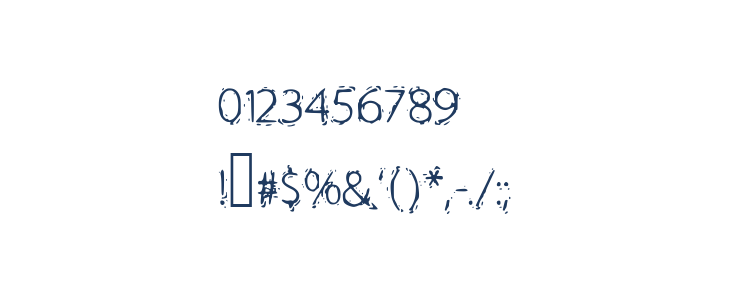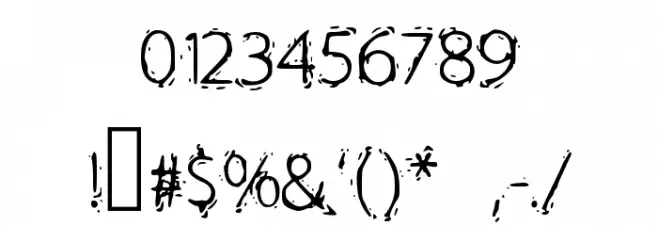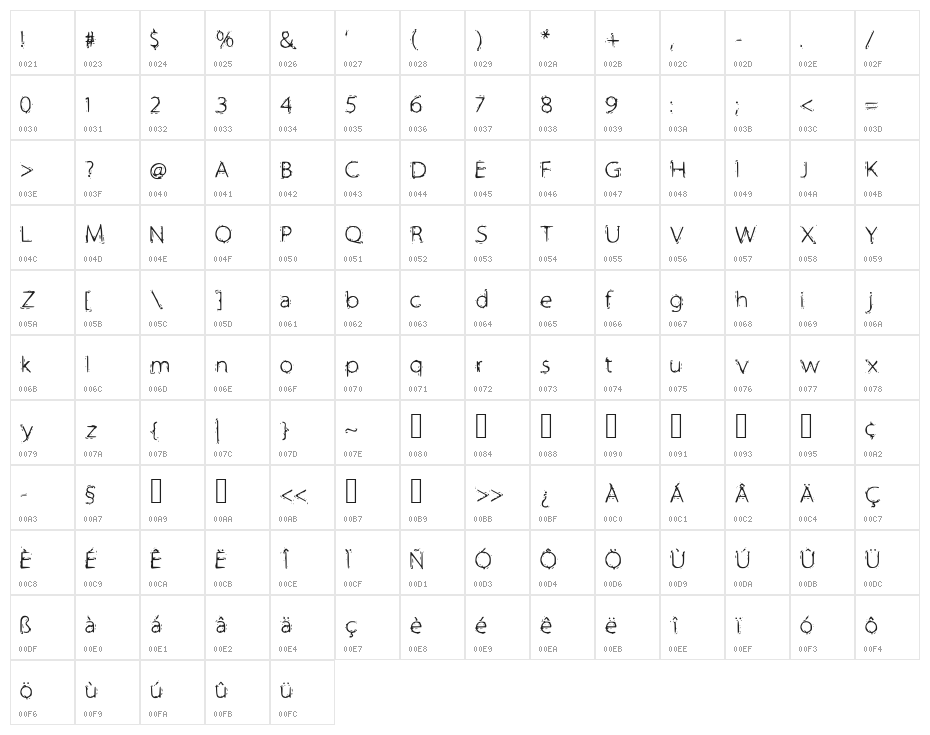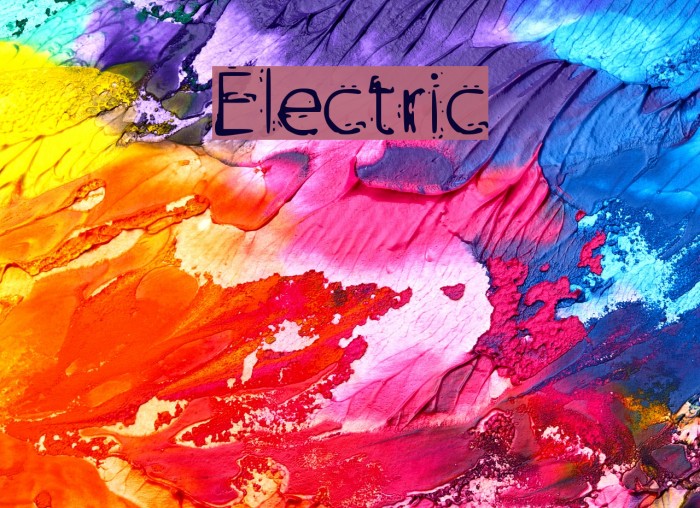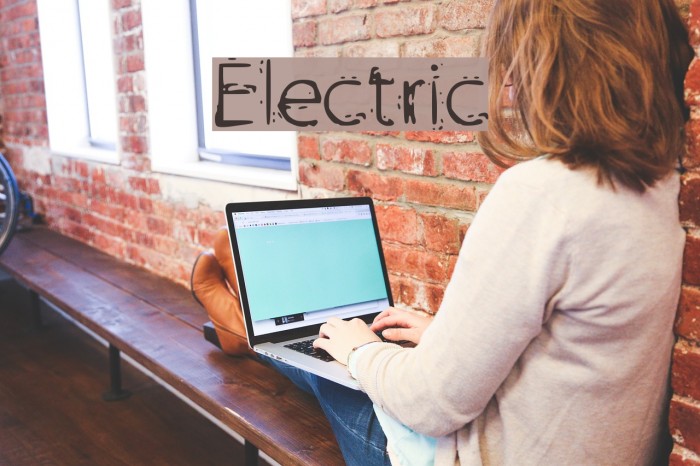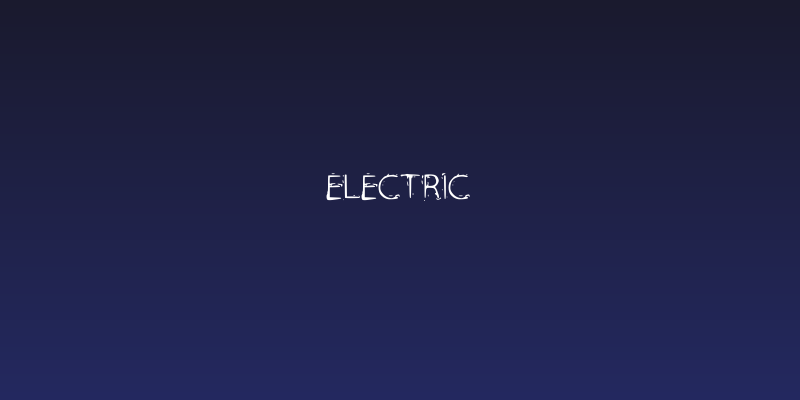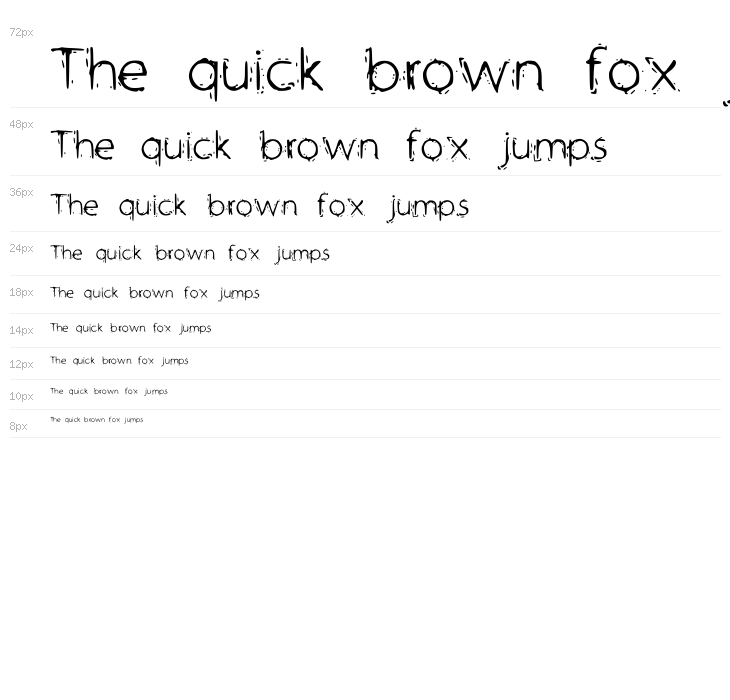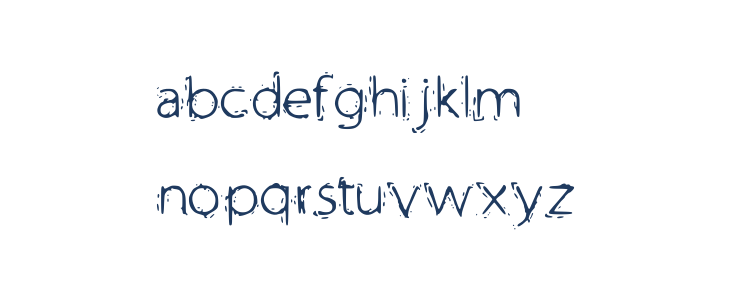
Electric Font
Electric Description
This font features a distressed and grungy aesthetic, characterized by irregular edges and a textured appearance that mimics wear and tear. The uppercase and lowercase letters maintain a consistent height, providing a uniform look despite the chaotic detailing. Numbers and special characters follow the same design principle, ensuring cohesion across all glyphs. The style is reminiscent of urban street art or vintage signage, offering a bold and edgy vibe. This font is well-suited for projects that require a raw, authentic feel, such as music album covers, event posters, or branding for alternative fashion labels.
| Overall Style | Grunge, Urban |
| Proposed Projects | Ideal for music album covers, event posters, alternative fashion branding, and urban-themed designs. |